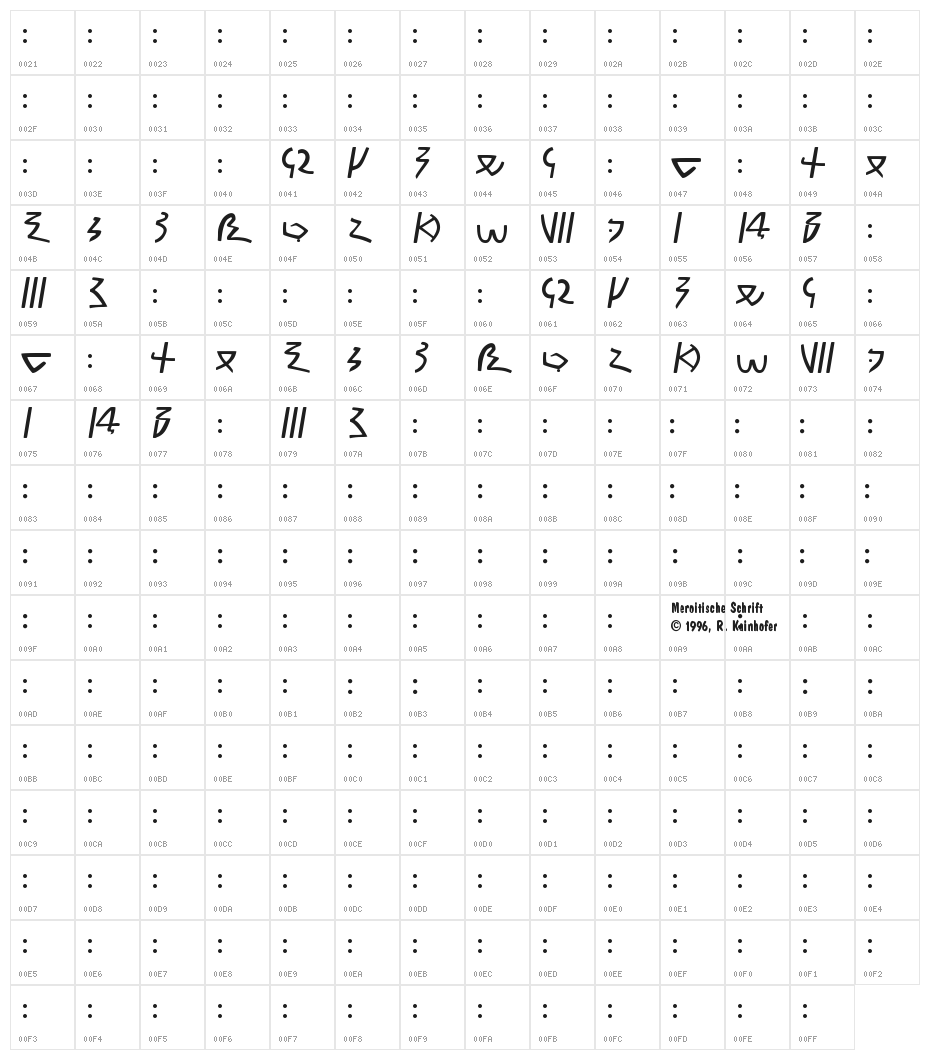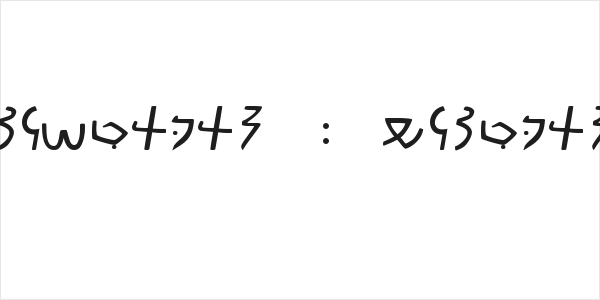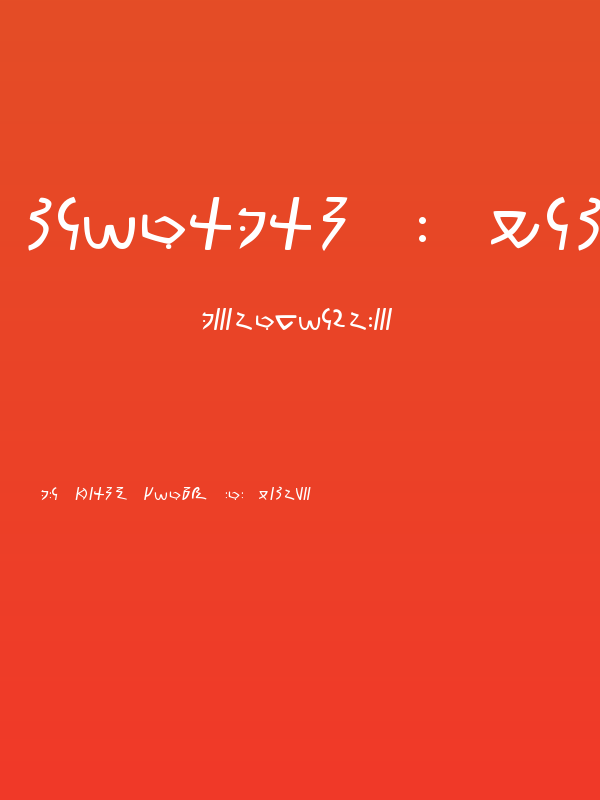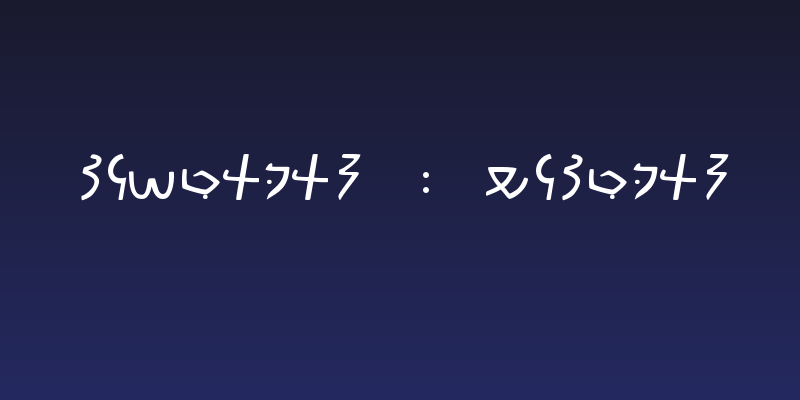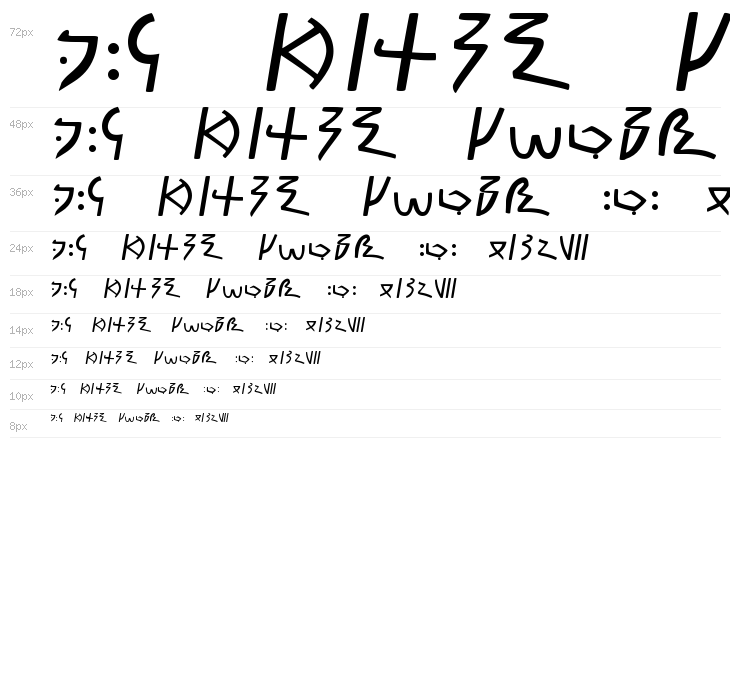
Meroitic - Demotic Font
Meroitic - Demotic Description
This font features angular, calligraphic glyphs with a handwritten appearance, inspired by ancient scripts. The characters are distinct, with varying stroke thickness and a casual, organic flow. Punctuation and numerals are stylized to match the script-like quality.
| Overall Style | Decorative, Ancient, Script-like |
| Use Case | Logos, Display text, Themed headlines, Educational graphics |
| Proposed Projects | Historical recreations, educational materials, themed posters, fantasy or adventure games, museum displays. |